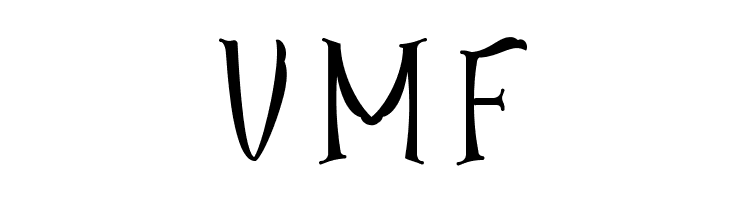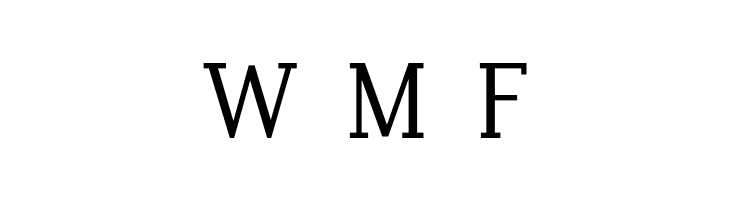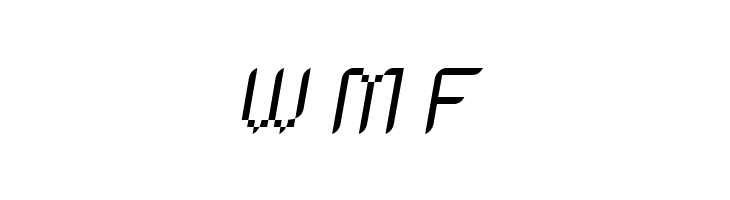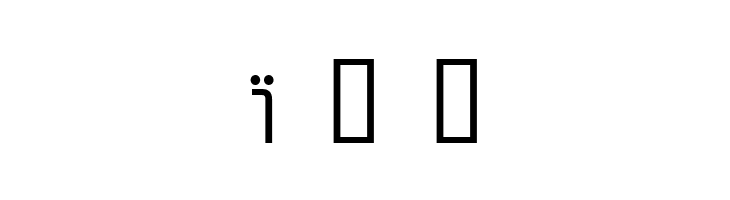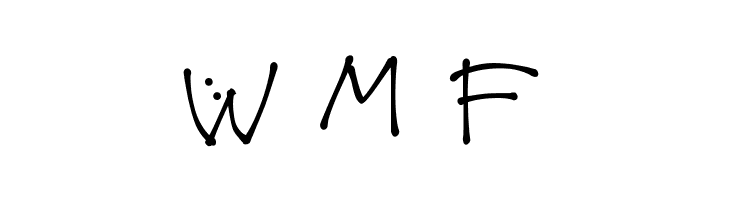
A thin, oblique font with a modern, dynamic style and geometric shapes.
A bold, oblique font with angular lines and a modern, dynamic style.
A bold, oblique font with a modern and dynamic style.
A bold, geometric font with rounded edges and a modern style.
A bold, geometric font with a modern, tech-inspired design.
A modern, geometric font with clean lines and uniform strokes.
A playful, whimsical handwritten font with irregular strokes and a casual charm.
A dynamic, expressive handwritten font with energetic strokes and fluid motion.
A whimsical, handwritten font with playful, uneven strokes.
A classic serif typeface with elegant proportions and balanced weight.